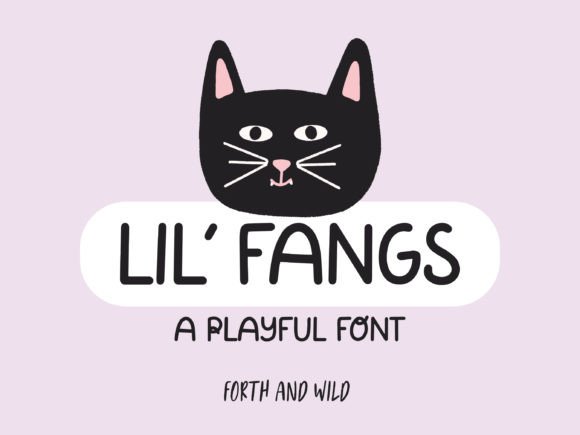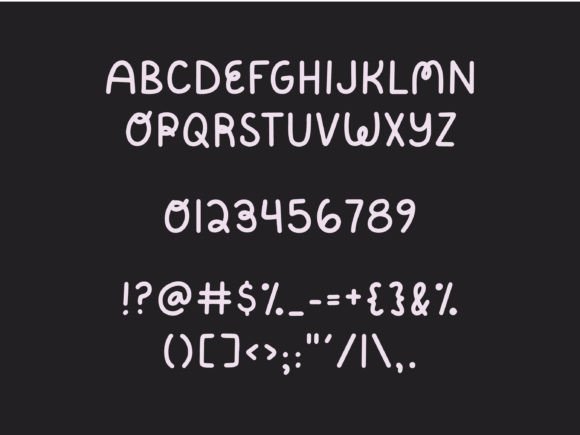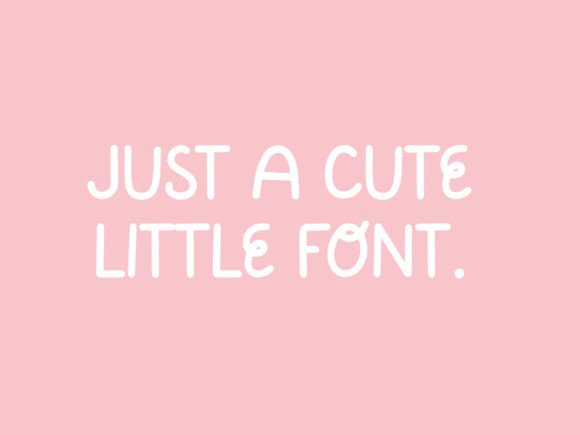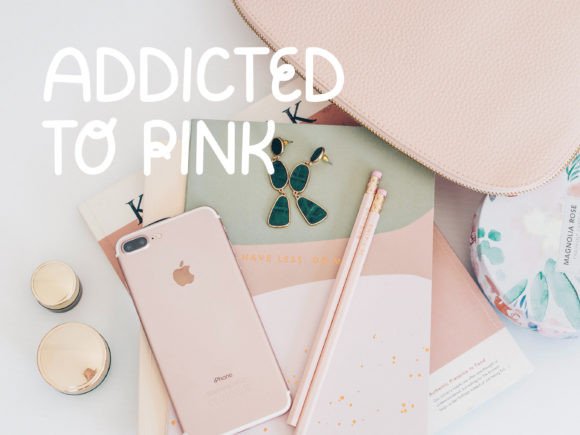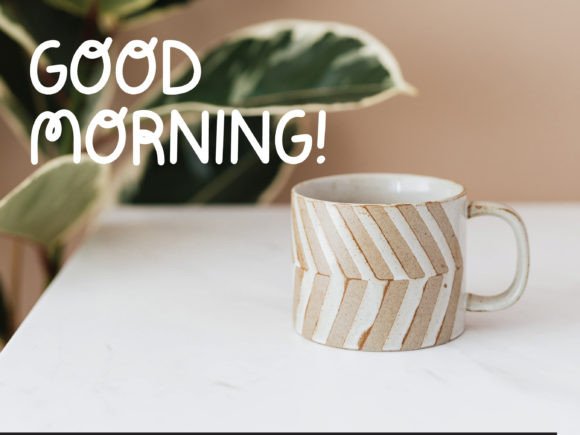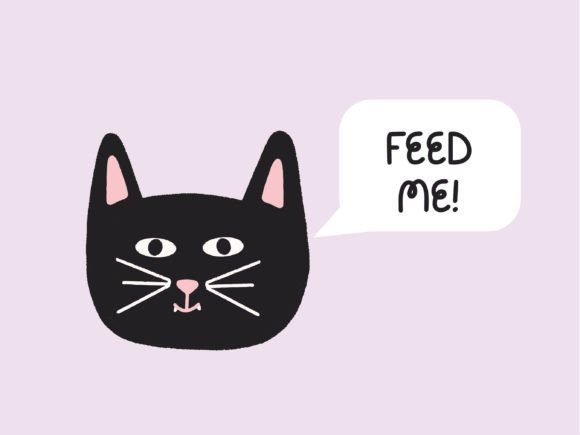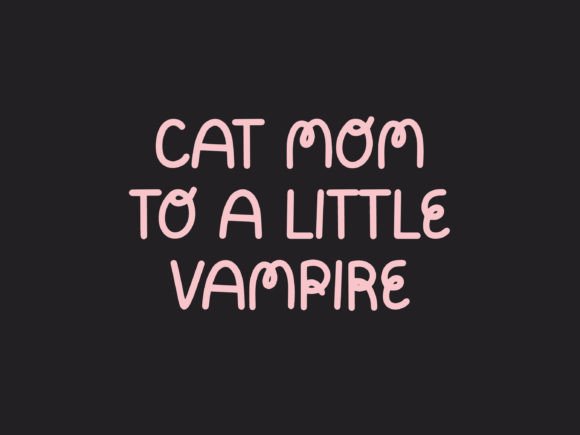
Fangs Font
About Fangs Font
**Fangs: Playful Handwritten Uppercase Font**
Discover the whimsical charm of **Fangs**, a handwritten uppercase font that infuses a delightful personal touch into your creative projects. With its playful and unique character, **Fangs** is the perfect choice for adding a touch of originality to your next endeavor.
This handwritten uppercase font is tailor-made for crafting eye-catching logos that are sure to leave a lasting impression. Its quirky, hand-drawn style adds a distinctive flair to your brand identity, setting it apart from the ordinary.
**Fangs** isn’t just limited to logos; it’s also ideal for creating shareable quotes on social media platforms like Instagram. Its bold and playful uppercase letters make your messages pop, ensuring they stand out in the crowded world of digital content.
It’s important to note that **Fangs** comes as you see it in the second image. While its punctuation and symbol options may be limited, its unique uppercase characters are more than enough to make a statement and add a personal touch to your projects.
In summary, **Fangs** is more than just a font; it’s a creative tool that allows you to infuse your projects with a playful and handcrafted aesthetic. Whether you’re designing logos, crafting social media content, or working on any other creative endeavor, **Fangs** brings a touch of originality that sets your work apart. Embrace its whimsy and let your creativity flourish.